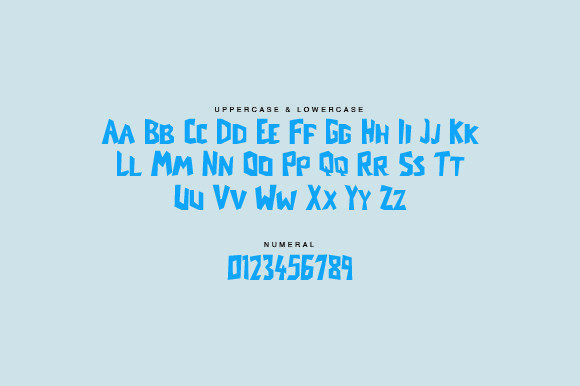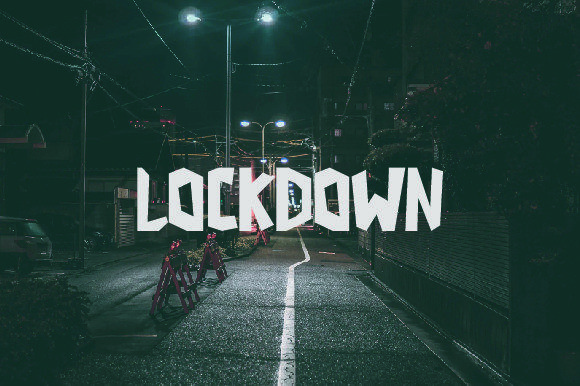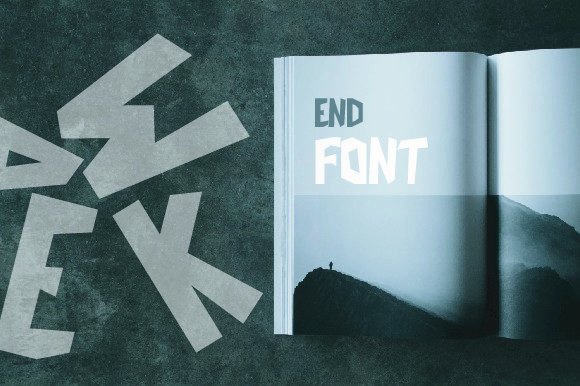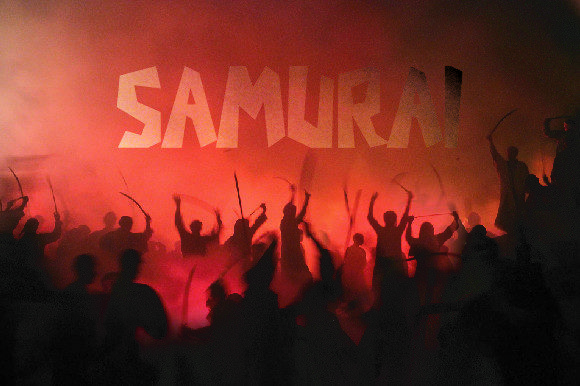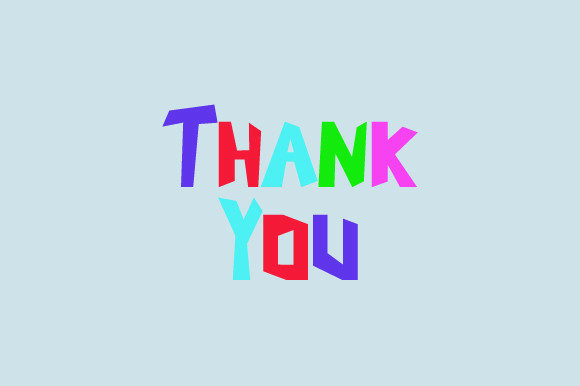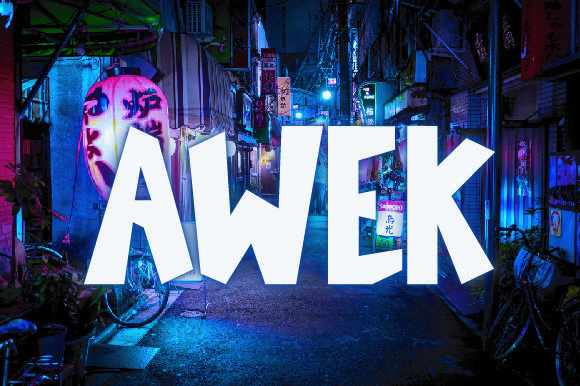
Awek Font: The Ultimate Display Font for Creative Projects
Are you a designer or crafter looking for a font that can add a touch of playfulness and personality to your creations? Look no further than Awek Font, a cartoon-like and thick lettered display font that’s perfect for a wide range of projects. In this article, we’ll take a closer look at Awek Font, its features, and how it can enhance your font library.
What is Awek Font?
Awek Font is a unique and eye-catching display font that’s designed to make a statement. Its cartoon-like and thick lettered style gives it a fun and playful feel that’s perfect for projects that require a bit of personality. Whether you’re working on a logo, poster, or social media graphic, Awek Font is sure to grab attention and leave a lasting impression.
Key Features of Awek Font
So, what makes Awek Font so special? Here are some of its key features:
- Cartoon-like style: Awek Font has a playful and whimsical feel that’s perfect for projects that require a bit of humor or personality.
- Thick lettered: The font’s thick letters make it easy to read and give it a bold, eye-catching appearance.
- Display font: Awek Font is designed specifically for display purposes, making it perfect for headlines, titles, and other attention-grabbing elements.
- Versatile: Despite its playful style, Awek Font is surprisingly versatile and can be used for a wide range of projects, from logos and posters to social media graphics and more.
How Awek Font Can Enhance Your Font Library
Awek Font is more than just a font – it’s a valuable asset that can enhance your font library and take your designs to the next level. Here are just a few ways that Awek Font can benefit your creative projects:
- Add personality to your designs: Awek Font’s playful style can add a touch of personality to even the most mundane designs, making them more engaging and memorable.
- Stand out from the crowd: With its bold and eye-catching appearance, Awek Font can help your designs stand out from the crowd and grab attention.
- Perfect for creative projects: Awek Font is perfect for creative projects that require a bit of whimsy and personality, such as children’s books, games, and animations.
Who Can Benefit from Awek Font?
Awek Font is perfect for a wide range of designers and crafters, including:
- Graphic designers: Awek Font is perfect for graphic designers who need a font that can add personality and whimsy to their designs.
- Illustrators: Awek Font’s playful style makes it perfect for illustrators who need a font that can complement their illustrations.
- Crafters: Awek Font is also perfect for crafters who need a font that can add a touch of personality to their handmade projects.
In conclusion, Awek Font is a valuable asset that can enhance your font library and take your designs to the next level. Its cartoon-like and thick lettered style makes it perfect for a wide range of projects, from logos and posters to social media graphics and more. Whether you’re a designer, illustrator, or crafter, Awek Font is sure to become a favorite in your font collection.